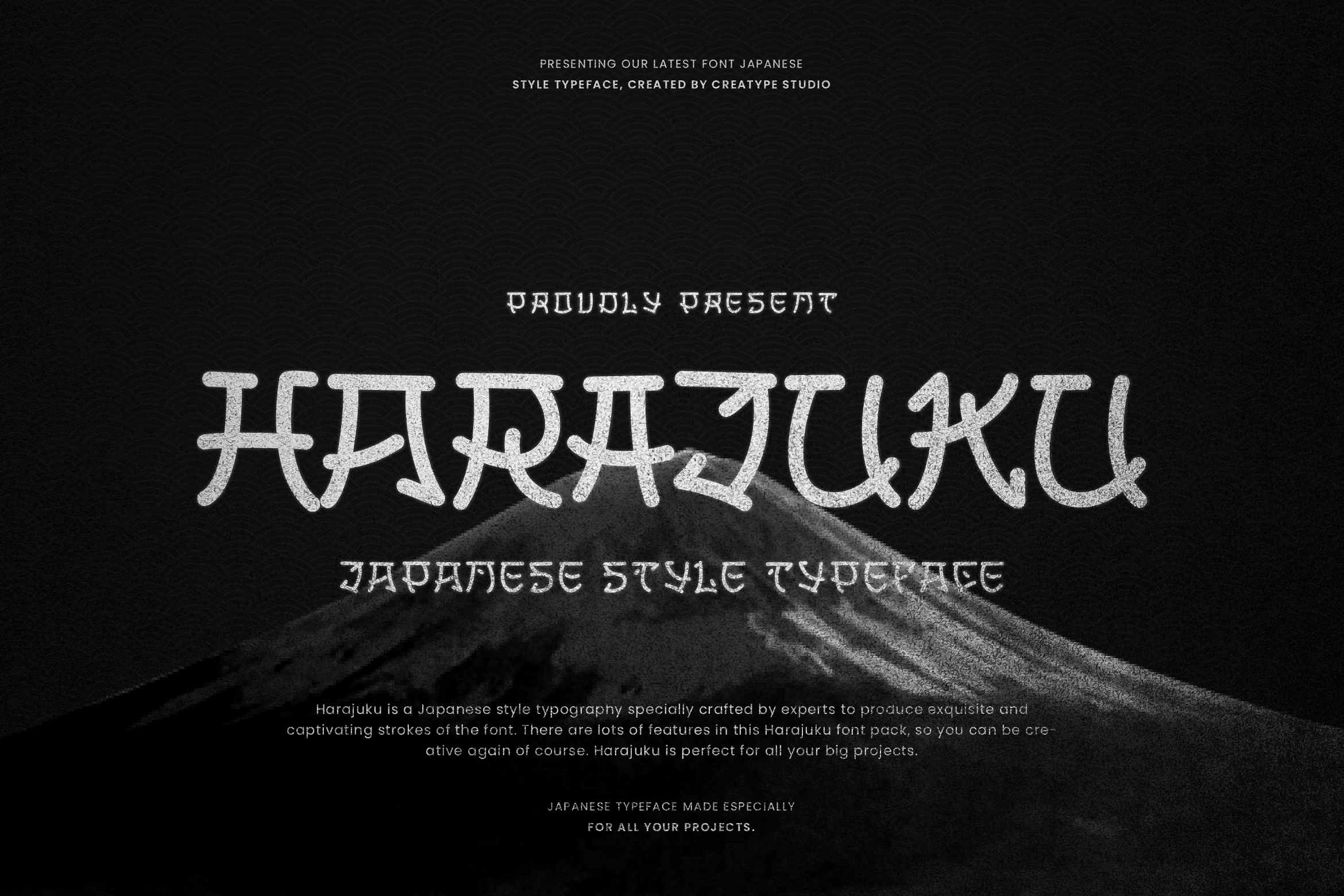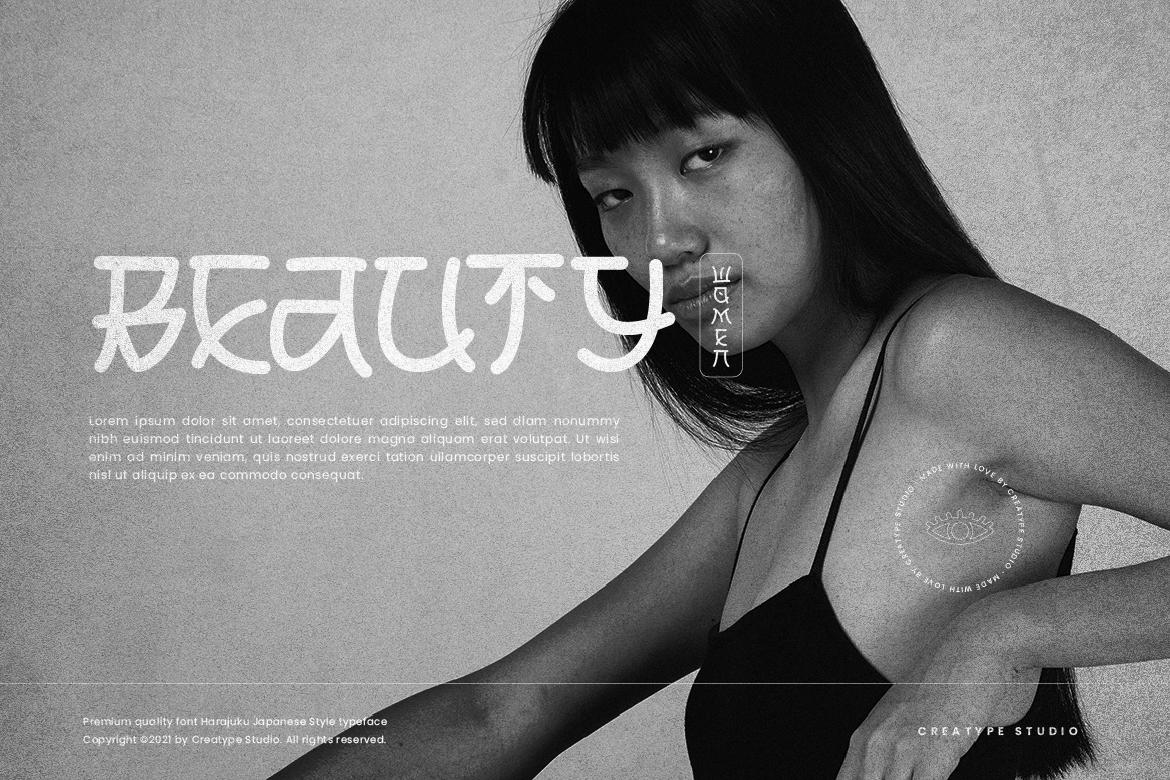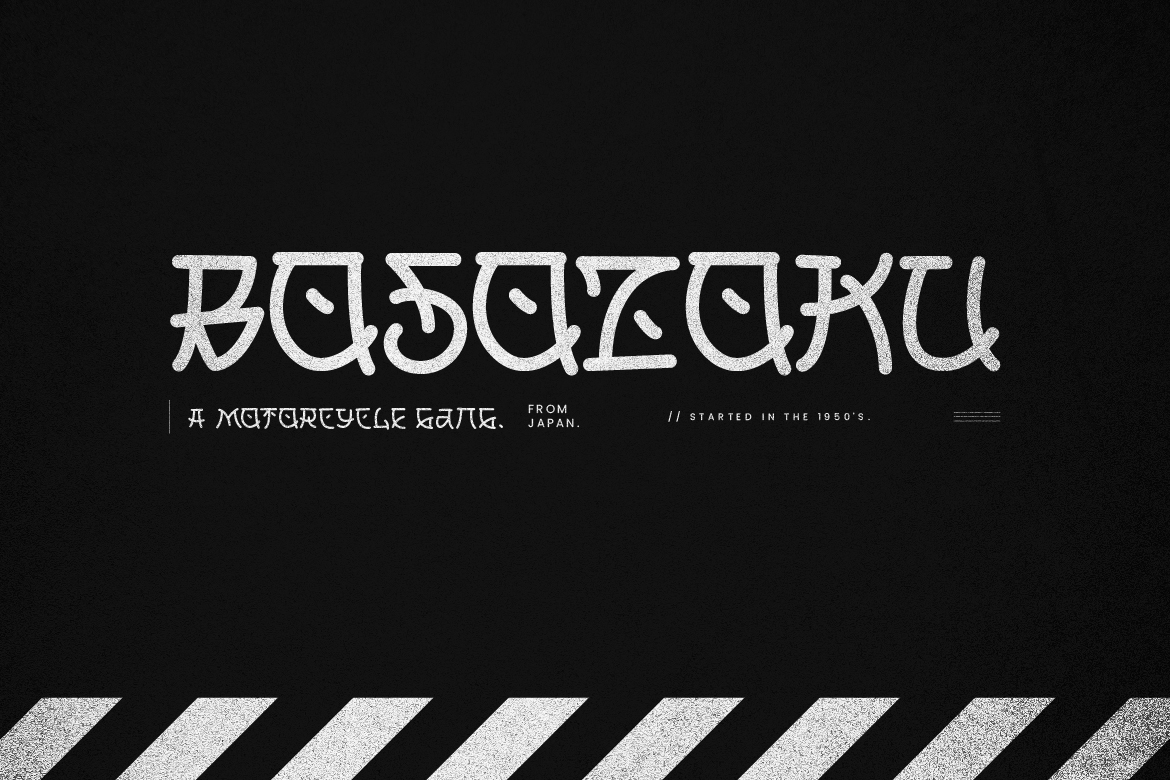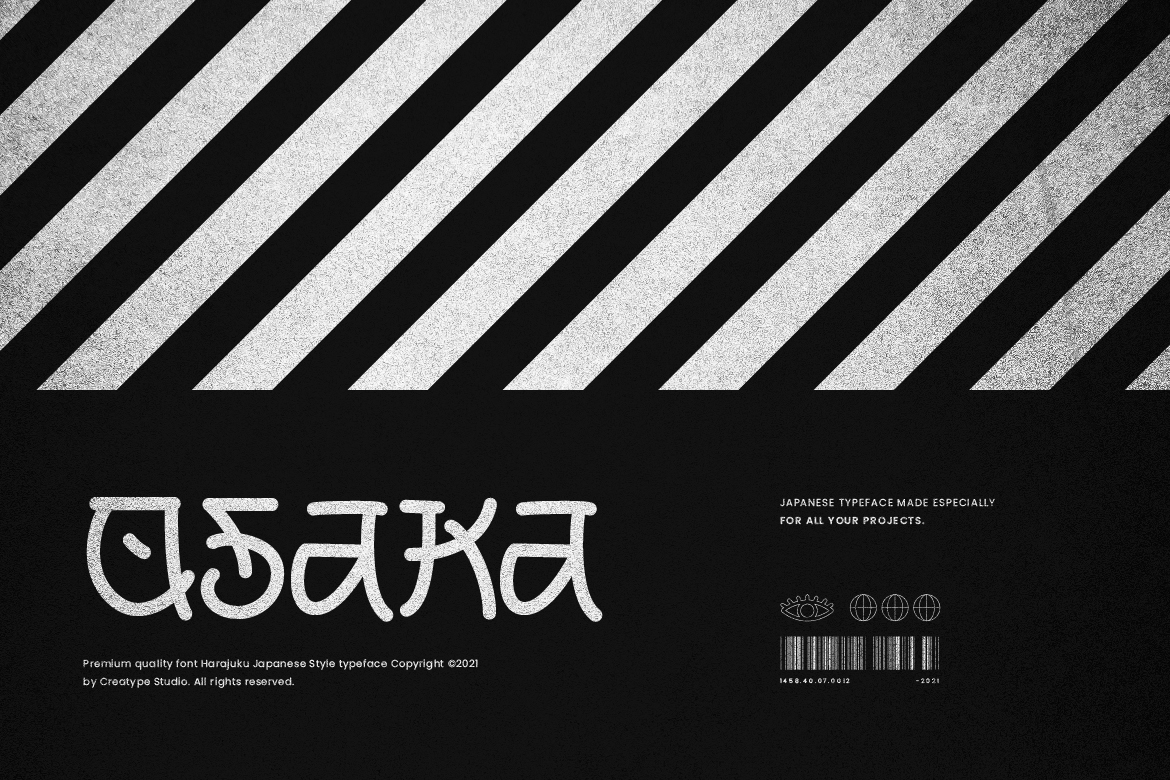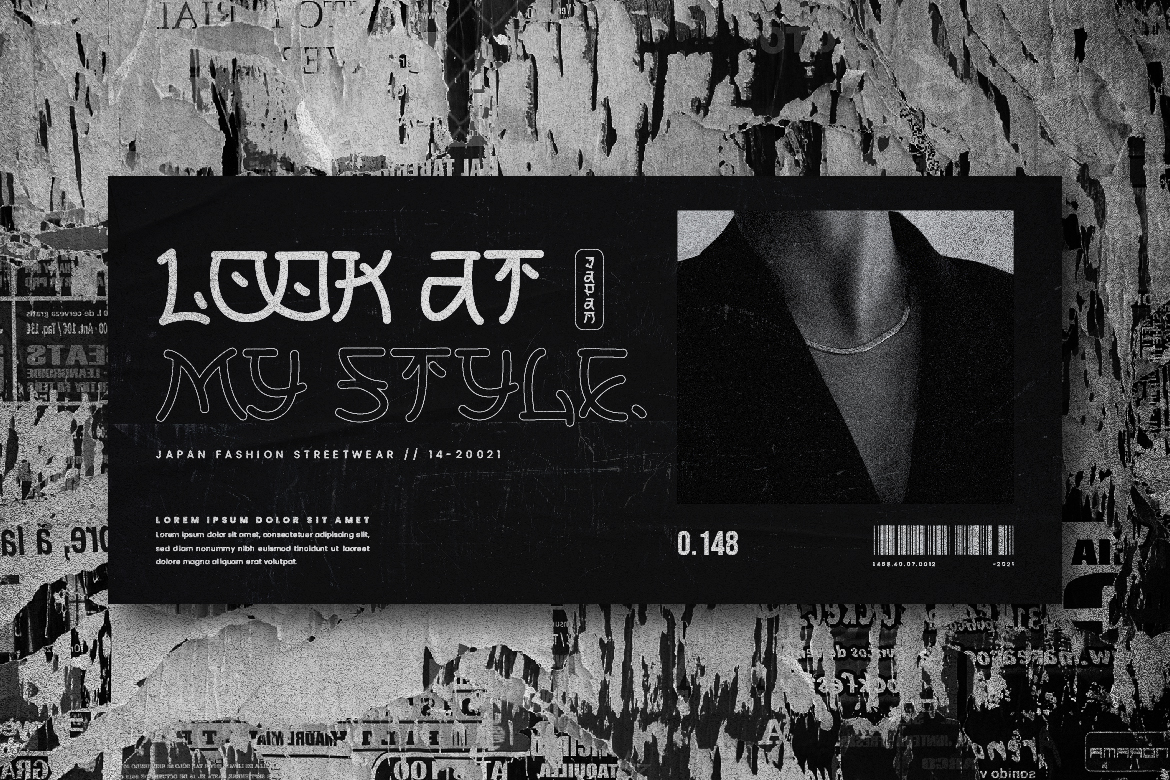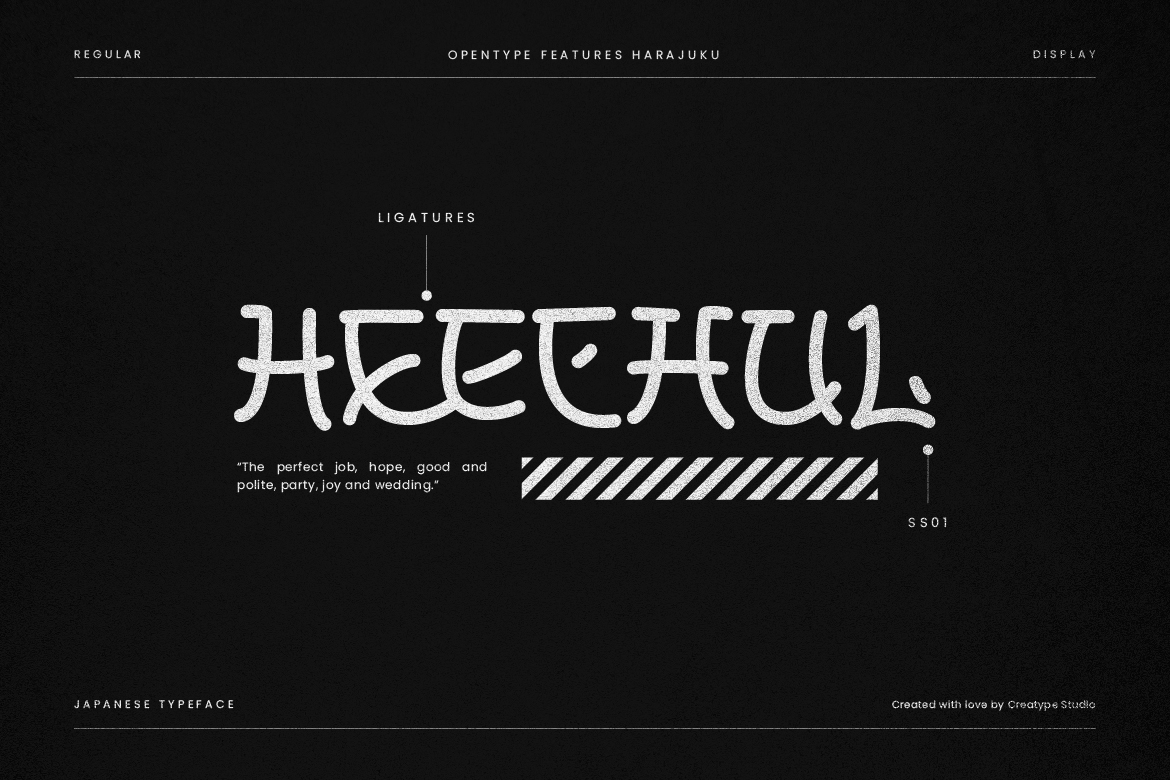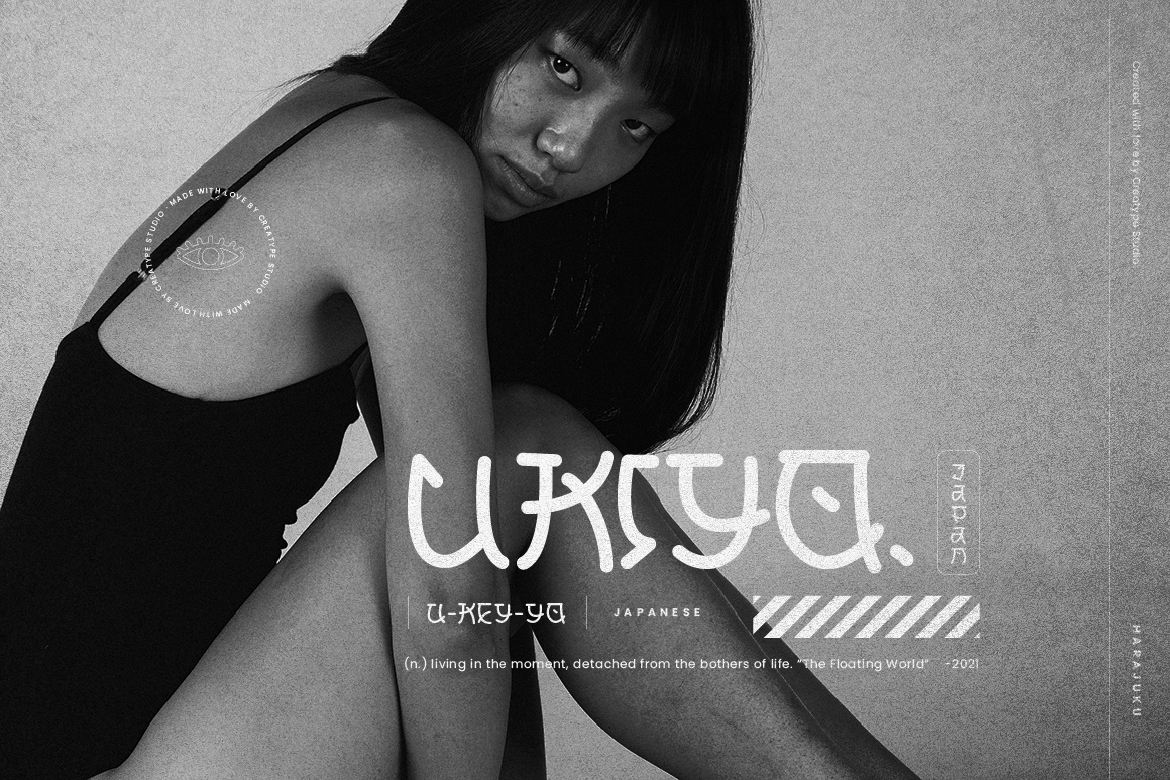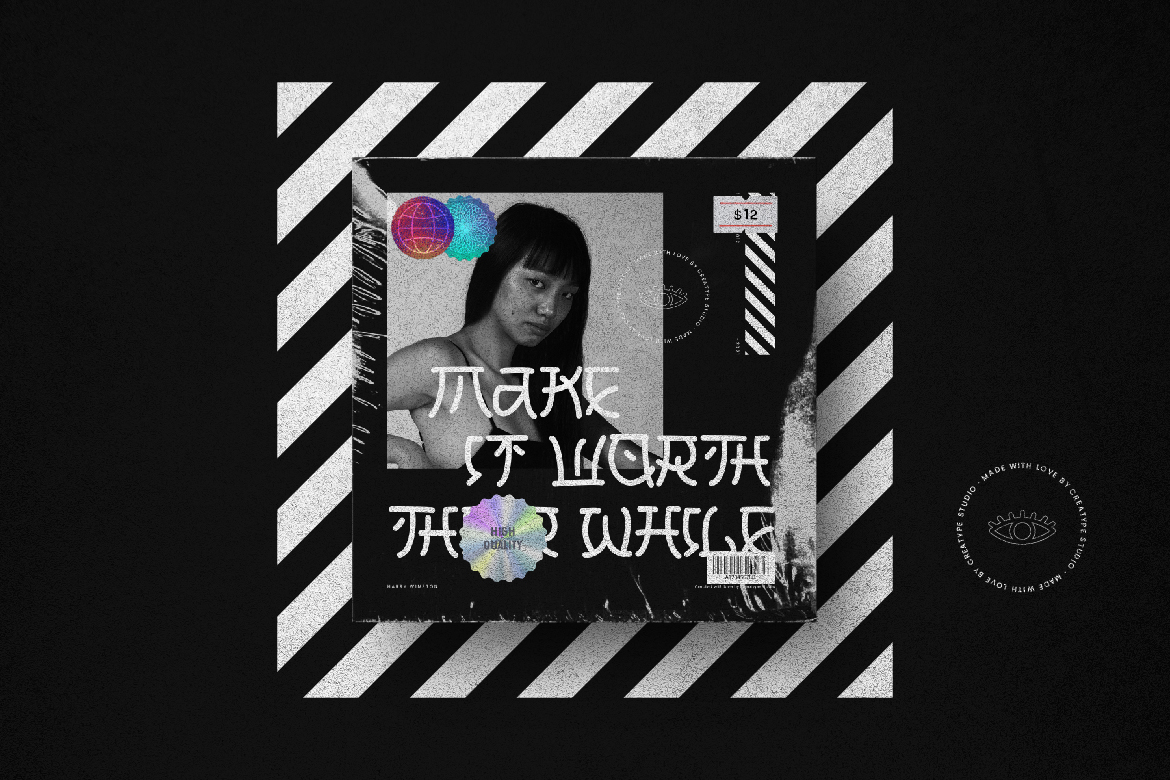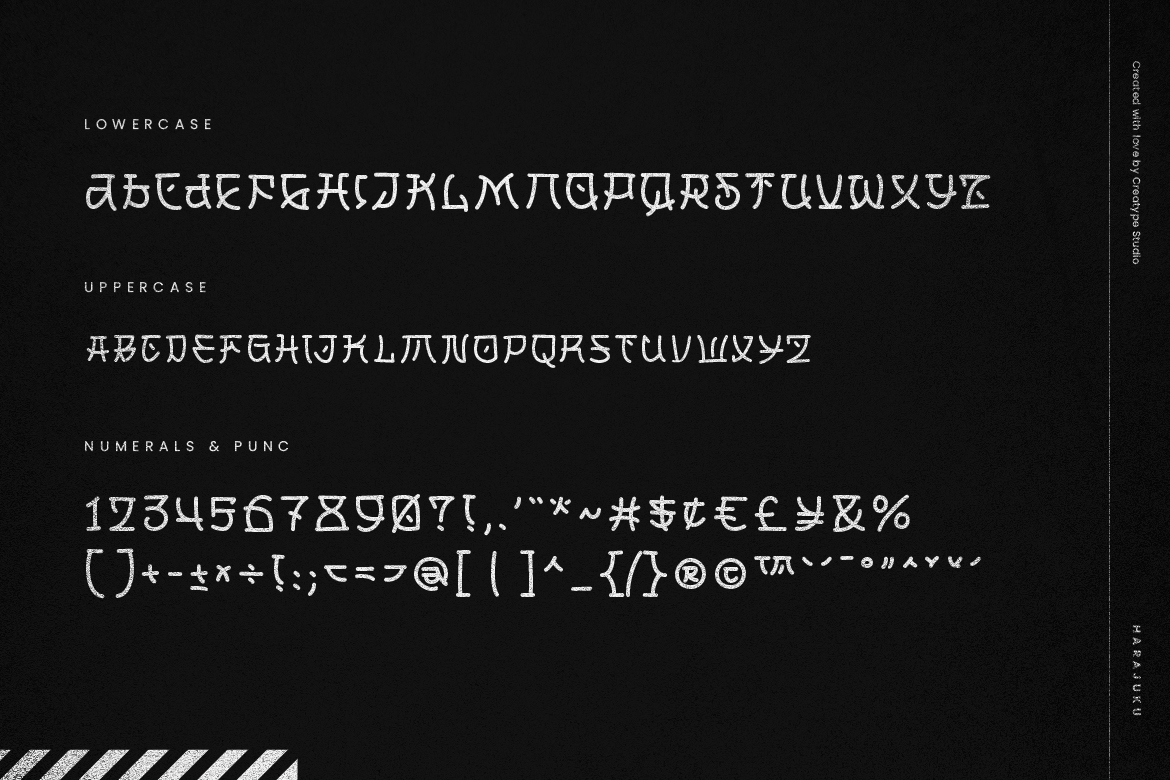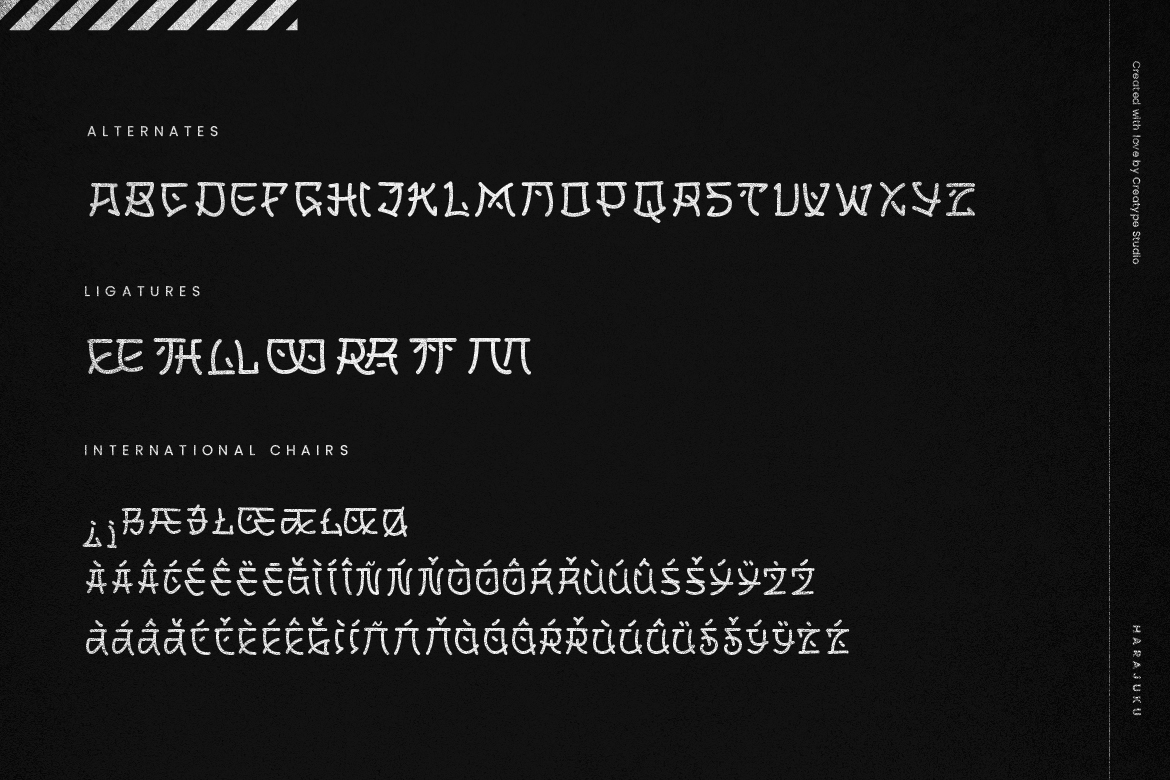
Harajuku Japanese Style
Harajuku is a Japanese style typography specially crafted by experts to produce exquisite and captivating strokes of the font. There are lots of features in this Harajuku font pack, so you can be creative again of course. Harajuku is perfect for all your big projects.
Harajuku is perfect for branding projects, logo, wedding designs, social media posts, advertisements, product packaging, product designs, label, photography, watermark, invitation, stationery and any projects that need handwriting taste.